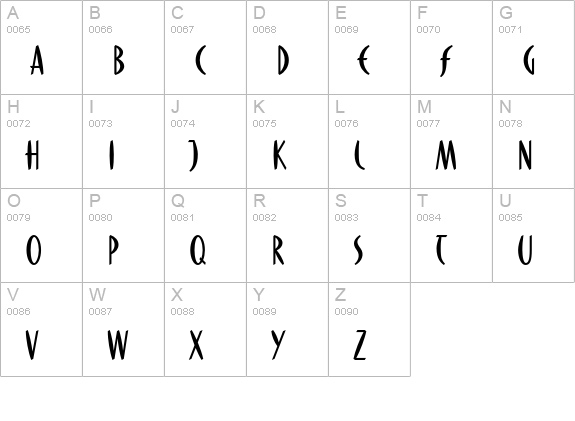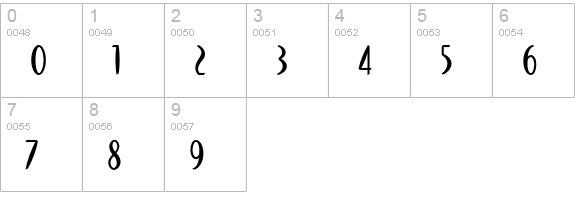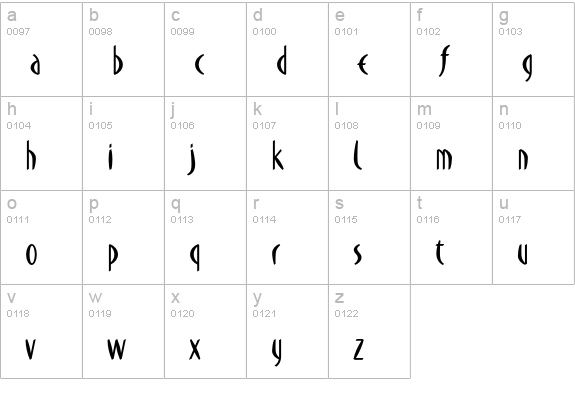
DuMoore Font Details
DuMoore font is a stunningly elegant and versatile typeface that is sure to make a bold statement in any design project. With its sleek lines and sophisticated curves, DuMoore exudes a sense of modernity and class that will elevate your designs to the next level. What sets DuMoore font apart is not only its aesthetic appeal but also its versatility. Whether you're designing a sleek logo, a stylish poster, or a professional presentation, DuMoore font will deliver a polished and refined look that will captivate your audience. Best of all, DuMoore font is completely free to download at FontsMarket.com. This means that you can access this premium typeface without any cost, making it an ideal choice for designers on a budget or anyone looking to add a touch of sophistication to their projects without breaking the bank. Don't miss out on the opportunity to elevate your designs with DuMoore font. Download it for free today and see the difference it can make in your creative endeavors.